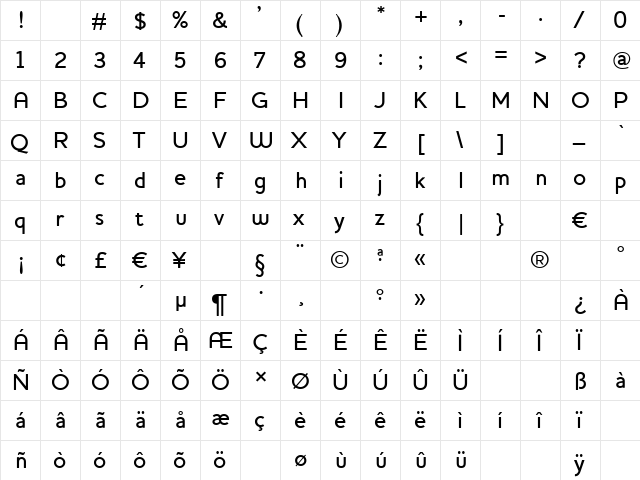
HouschkaMedium Regular Font Preview
HouschkaMedium Regular
HouschkaMedium Regular Font Details
Design Context for HouschkaMedium Typeface
HouschkaMedium takes a measured approach to typography — its balanced proportions and neutral character make it a reliable workhorse for both digital and print work.